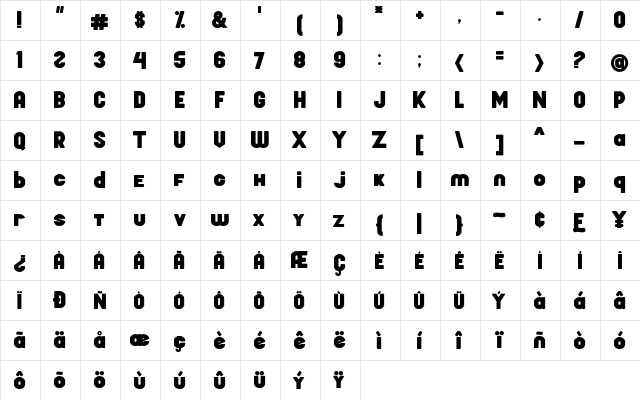
Fortman Regular Font Preview
Fortman Regular
Fortman Regular Font Details
Design Context for Fortman Typeface
Fortman is a composed and adaptable typeface that performs quietly and consistently across a wide range of design contexts.